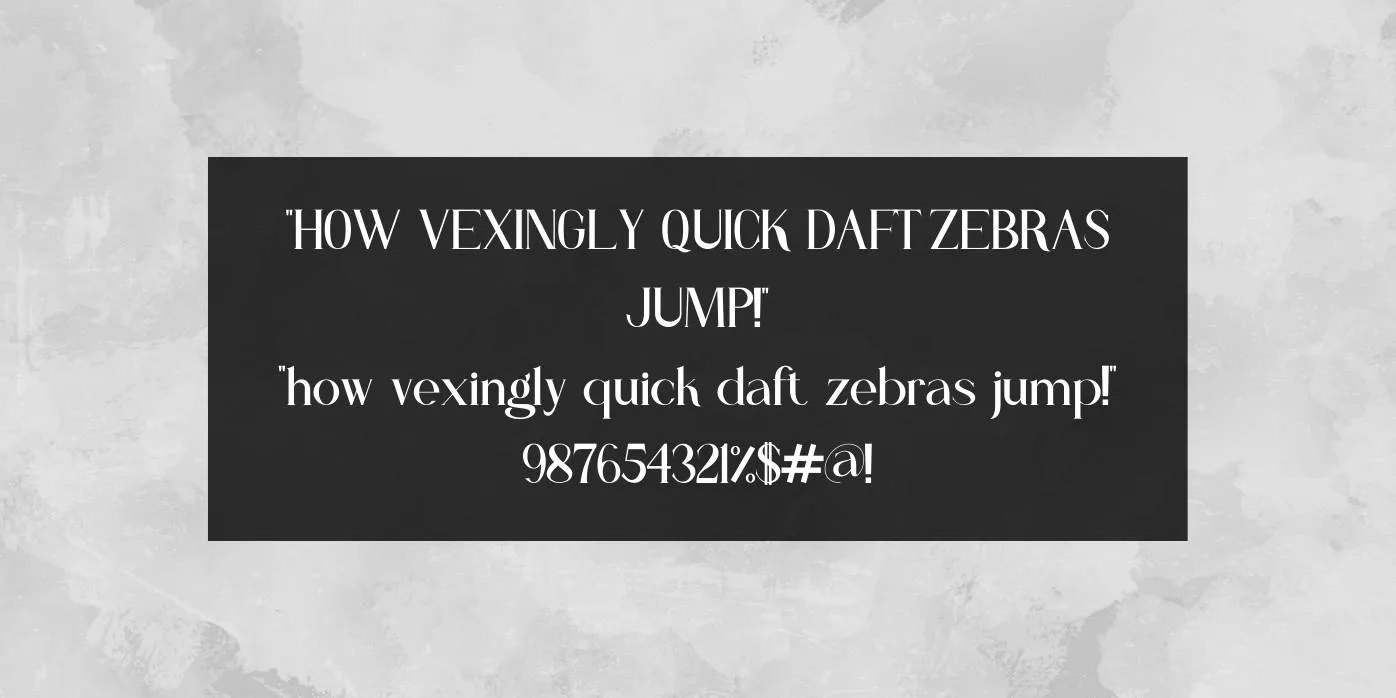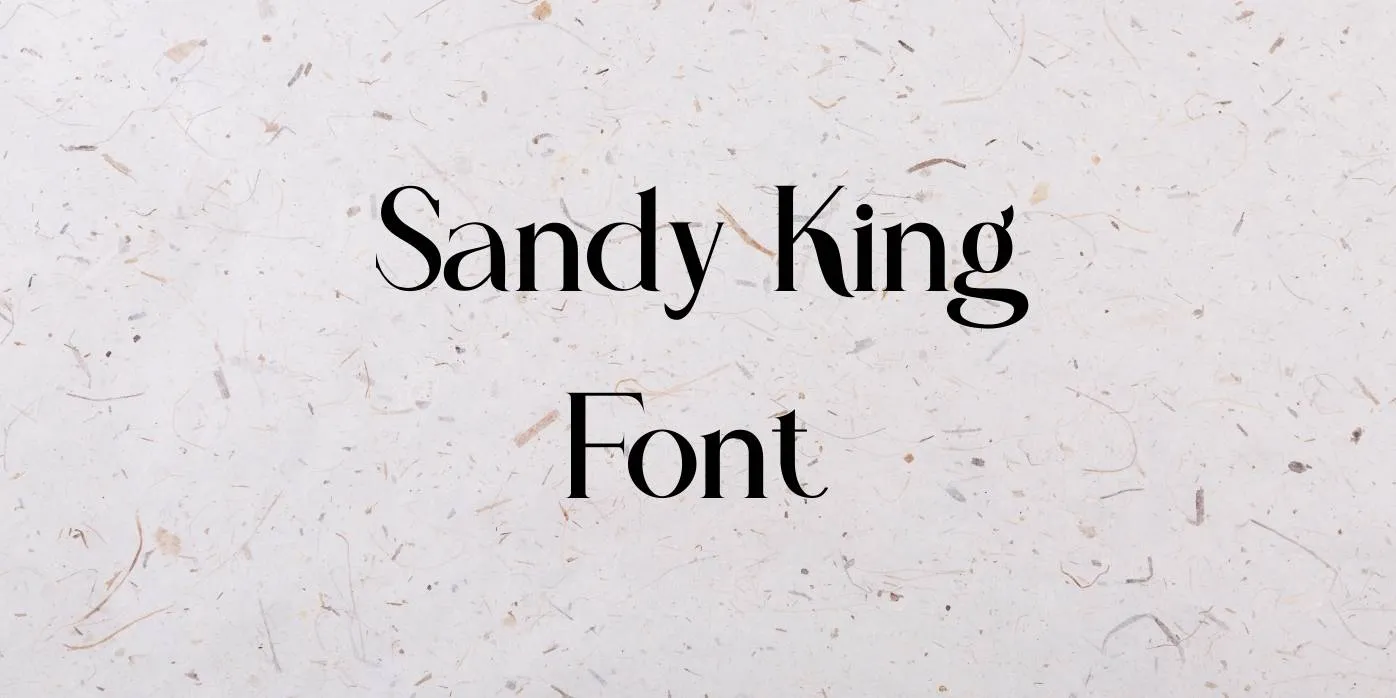
Sandy King Font
In this article, we discuss Sandy King Font that belongs to the serif family.¬† This typeface is perfect for those who are looking for a classic and timeless font. This stylish font has been around since the early 1900s and it’s still going strong today. Sandy King Typeface is characterized by its tall, thin letters and its elegant serifs. This font is perfect for titles, headings, and body text.
This font is available in both regular and Bold weights. You can use galliard font which has the same style and characters as this one. The copy and paste function of this family is very amazing for textual designs. If you’re looking for a classic font that will never go out of style, this font is a perfect choice.
This versatile font can be used for everything from titles to body text. Sandy King Typeface is available in both regular and Bold weights, so you can find the perfect look for your project. You can get beneficial results by using its generator tool.